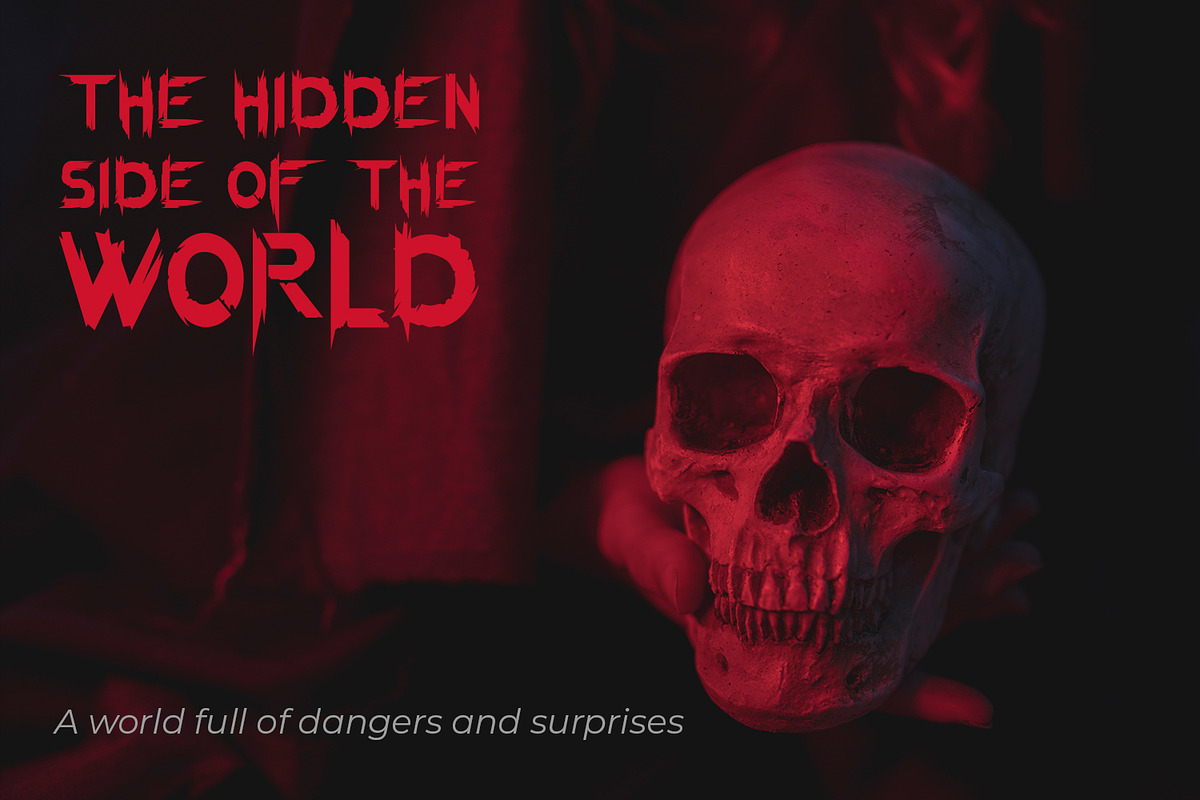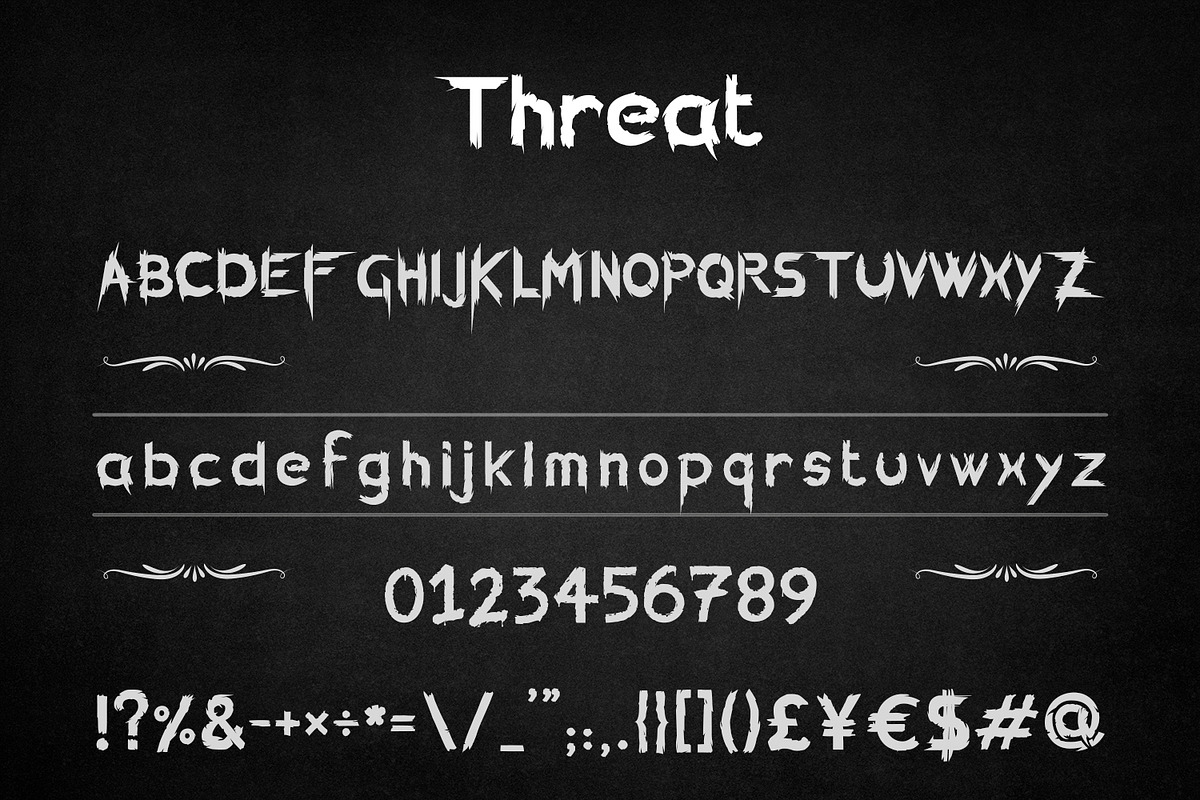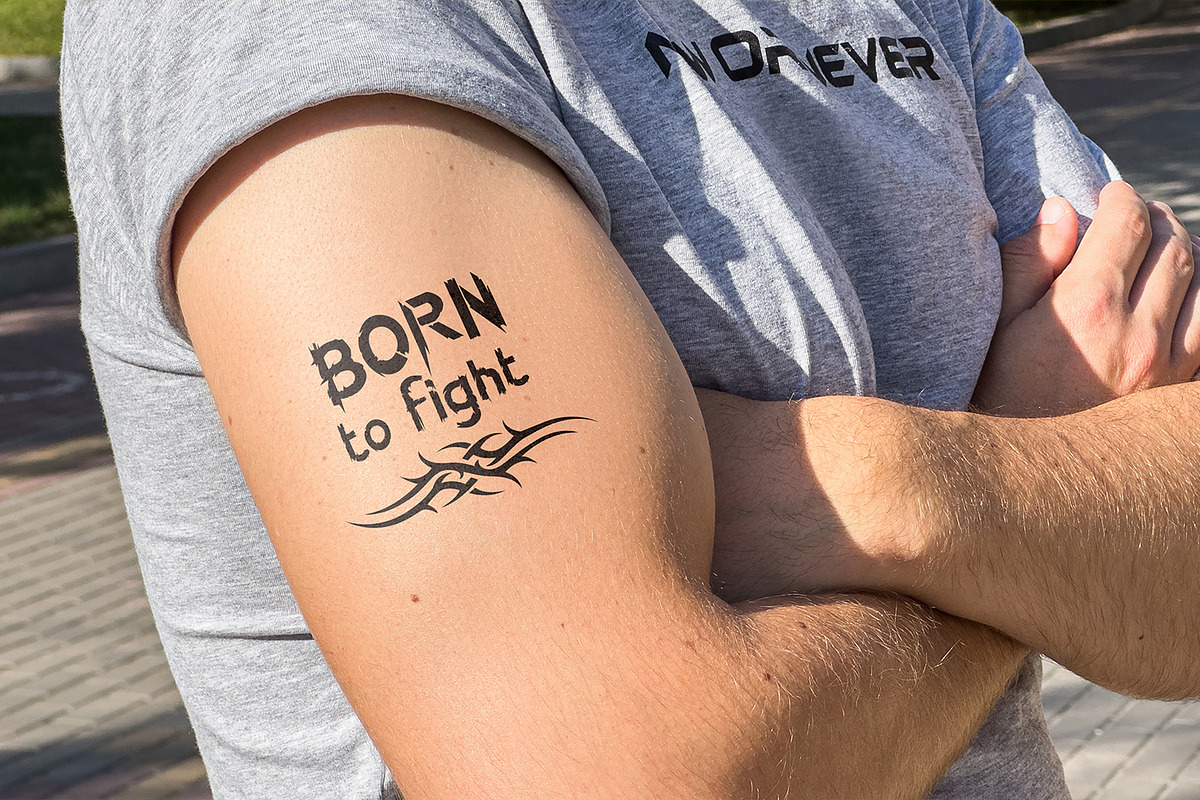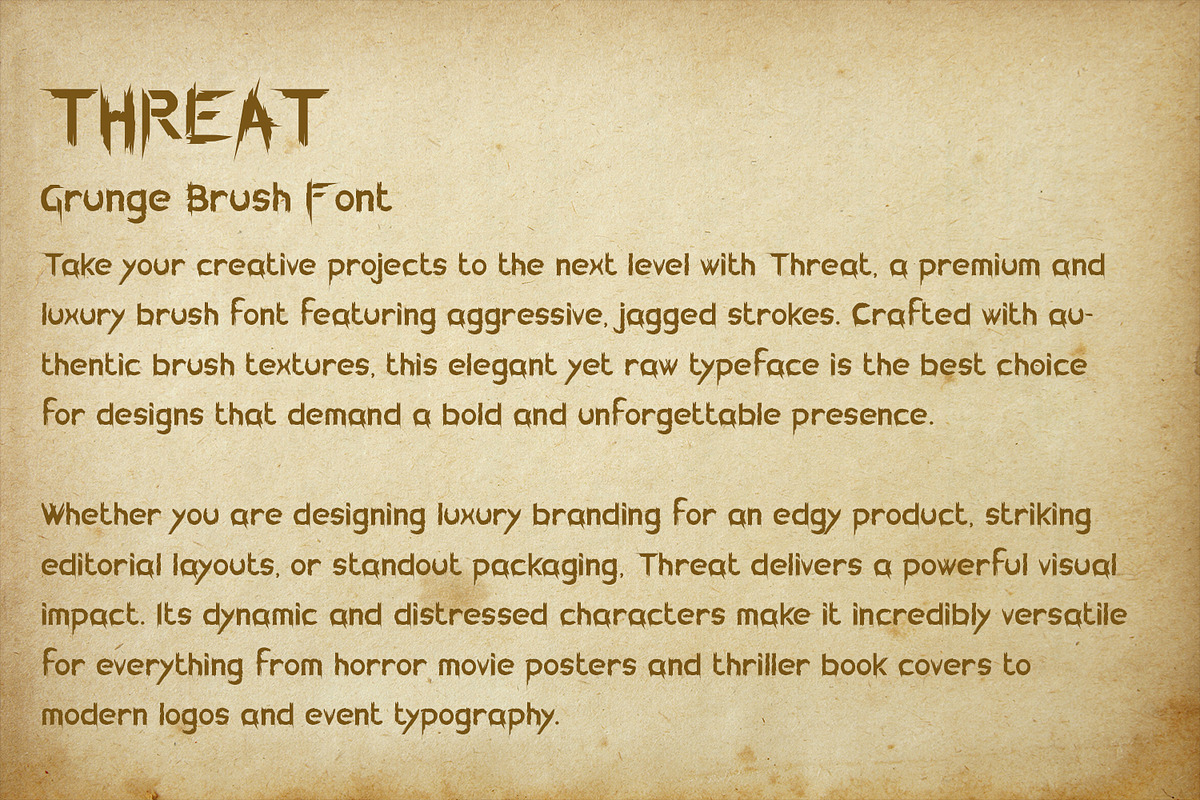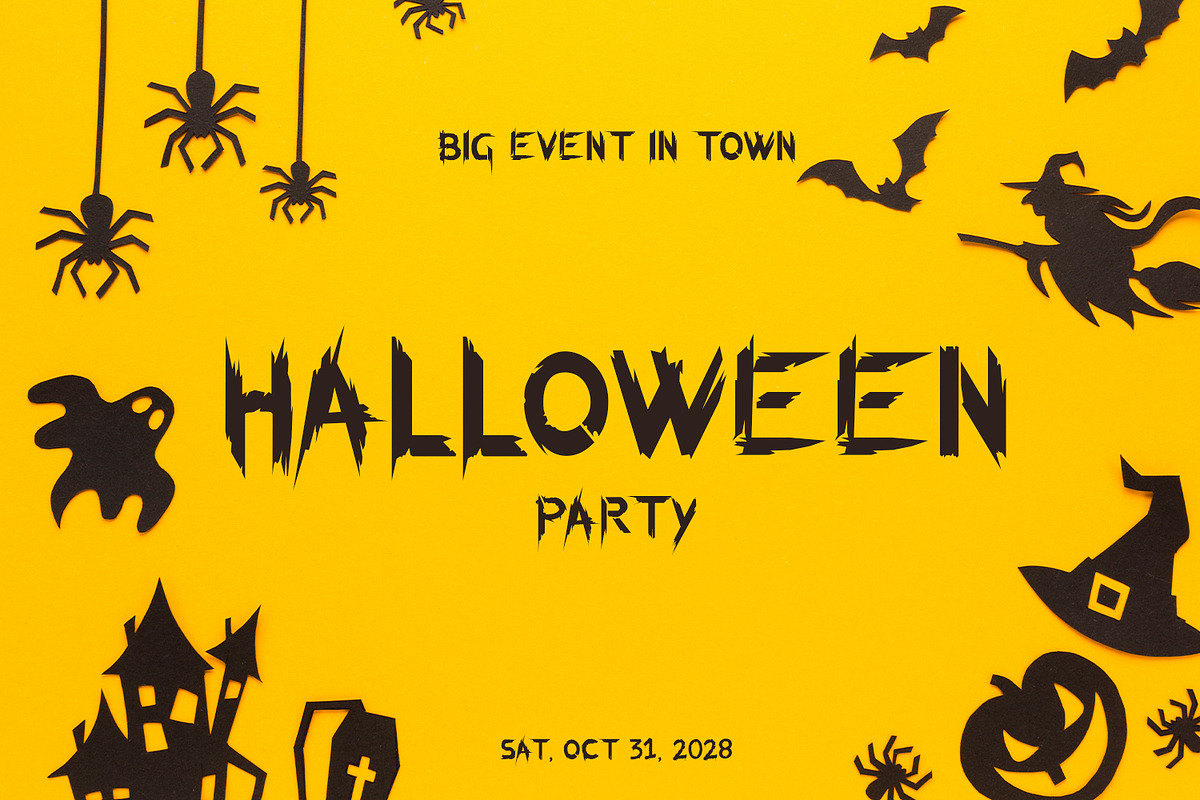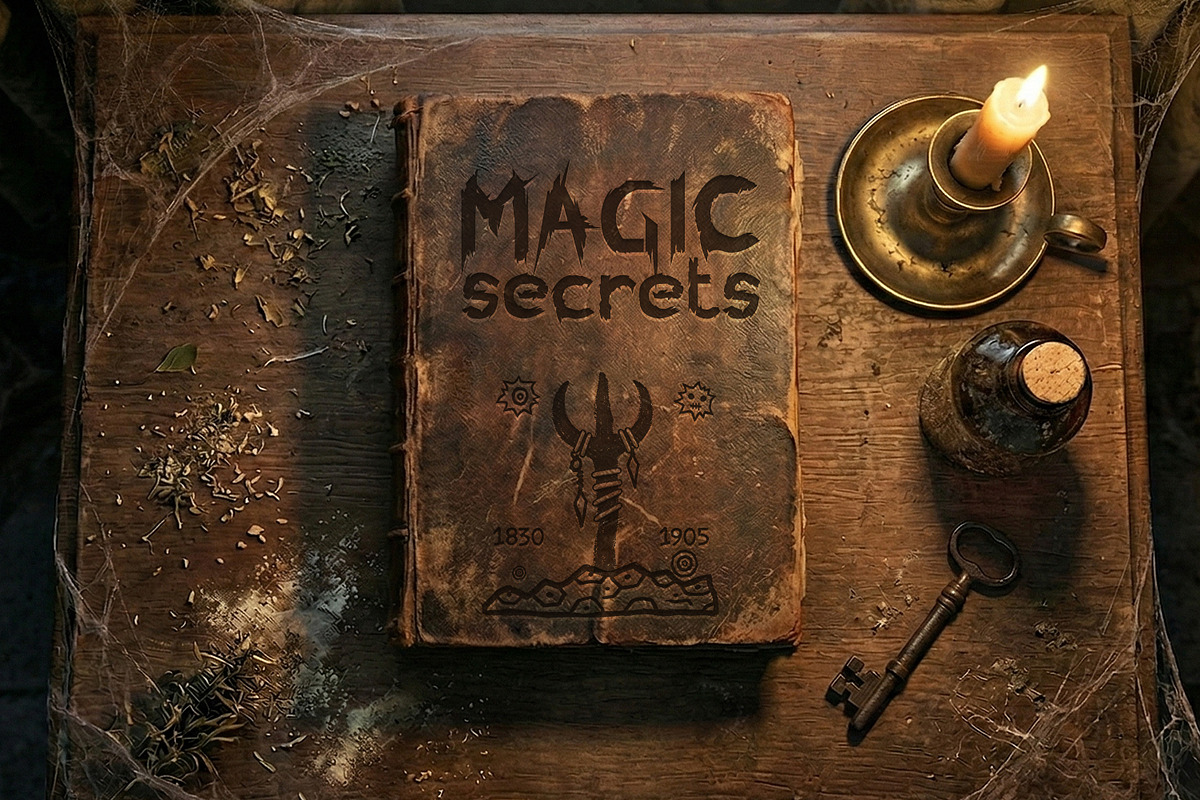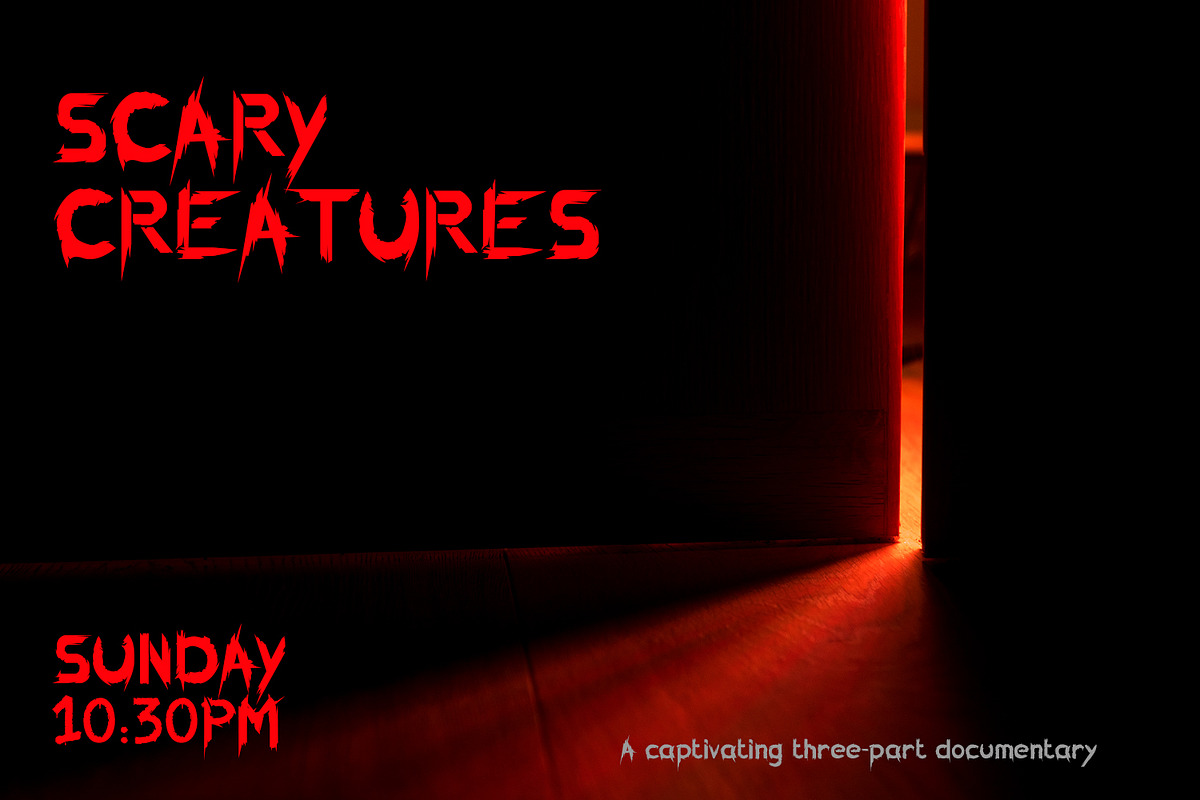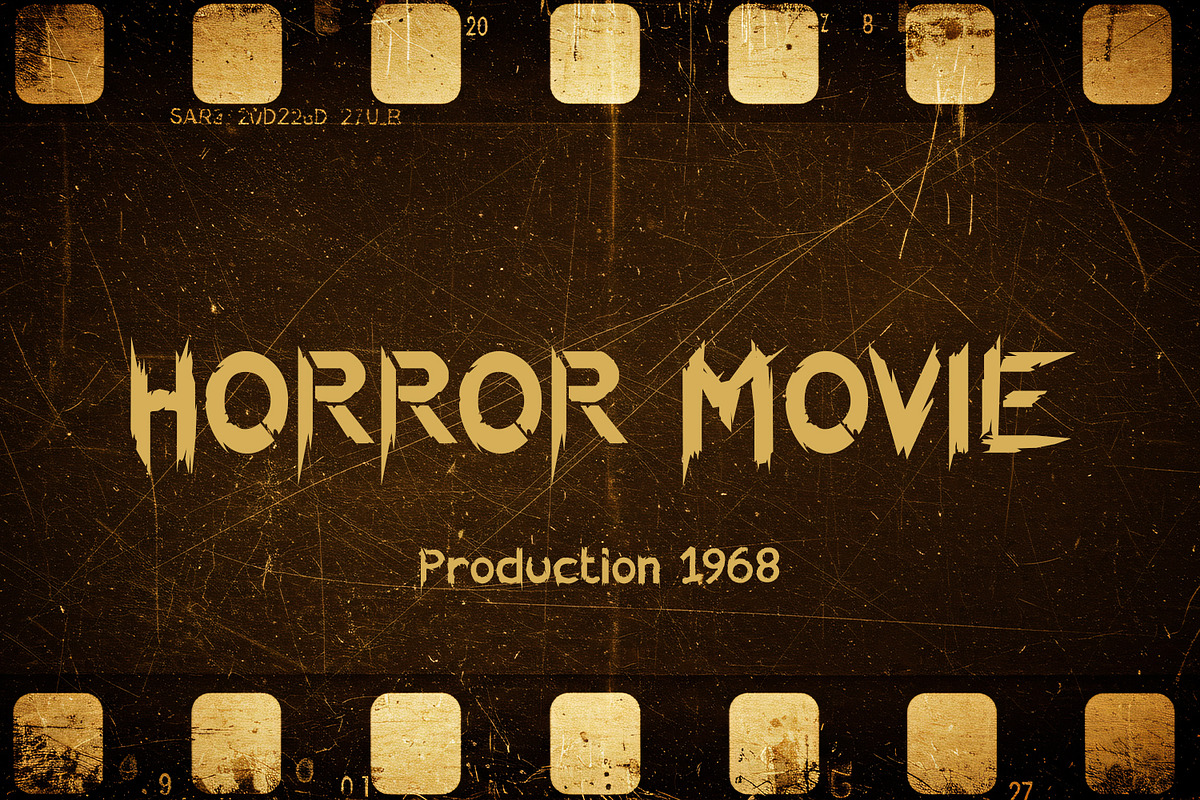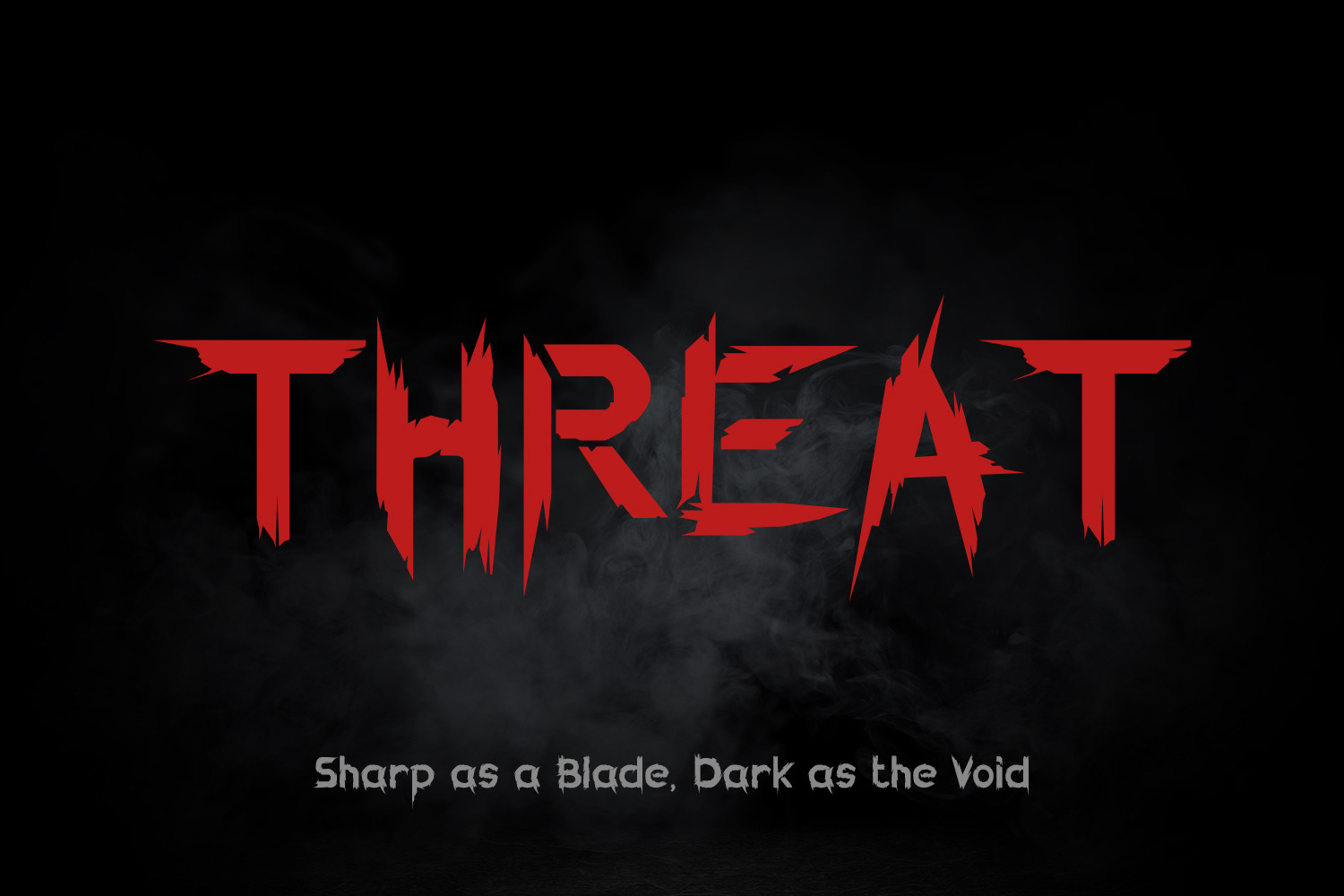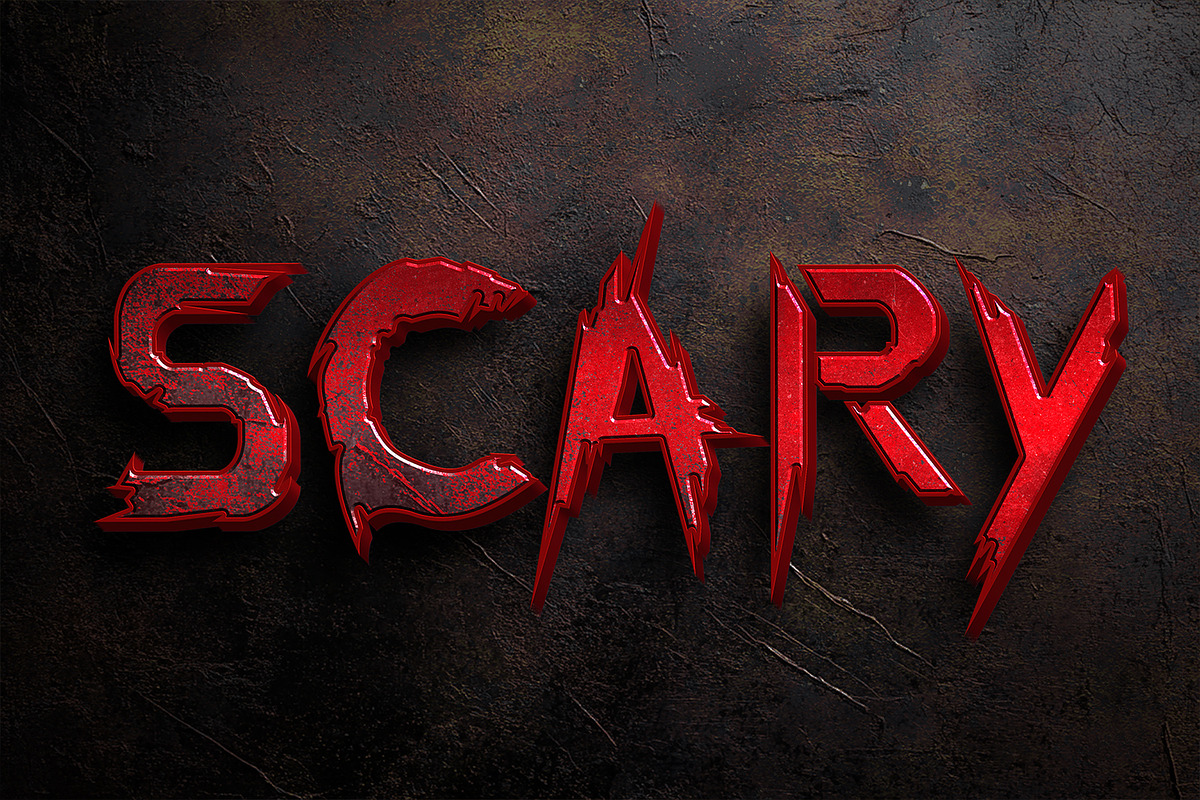
Threat - Grunge Brush Font
Unleash raw, unapologetic energy into your designs with Threat, the ultimate premium brush font. Featuring aggressive, jagged strokes and a highly textured, distressed look, this luxury display typeface is an absolute must-have for your digital crafting and professional design toolkit.
Whether you are launching a new streetwear apparel line, creating edgy t-shirt graphics, or working on high-end fashion branding, Threat delivers a bold and unforgettable aesthetic. Its authentic, hand-painted grunge style is the best choice for modern clothing and merchandise, ensuring your products stand out in any highly competitive market.
Beyond apparel, the versatile and dark nature of this font makes it the perfect match for horror movie posters, spooky Halloween invitations, custom tattoo designs, thriller book covers, and heavy metal album art. Add a touch of elegant chaos to your next big project!
- Full Character Set: Uppercase and lowercase letters with a raw, hand-drawn feel.
- Numbers & Punctuation: A complete set of numerals and essential punctuation marks.
- Extensive Symbols: Includes special characters (©, ®, €, £, ¥, etc.) for professional branding and commercial use.